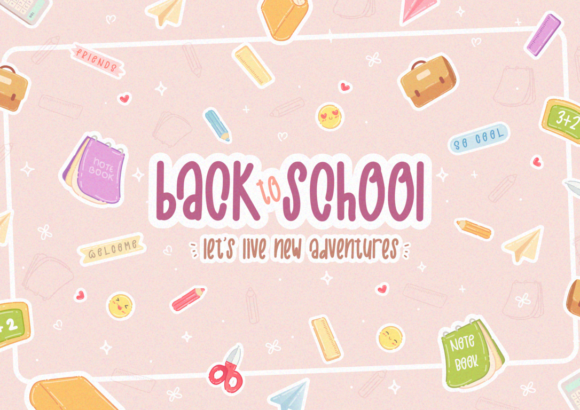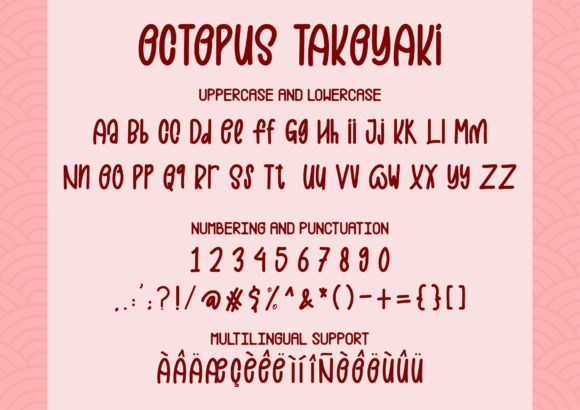
Octopus Takoyaki Font
db-ku.com - Script & Handwritten -- Octopus Takoyaki is a playful and cute handwritten font that can be used for all chalkboard quotes or teaching material! Its authentic look will add a personal and realistic feel to your designs.